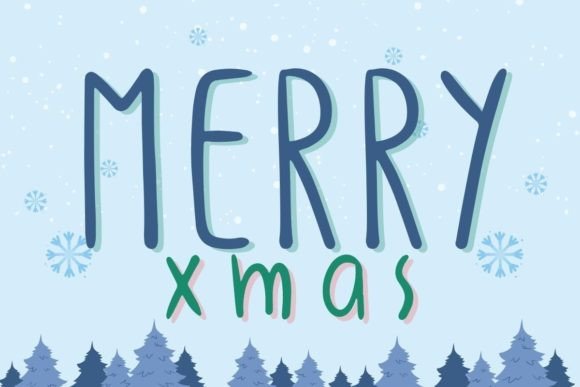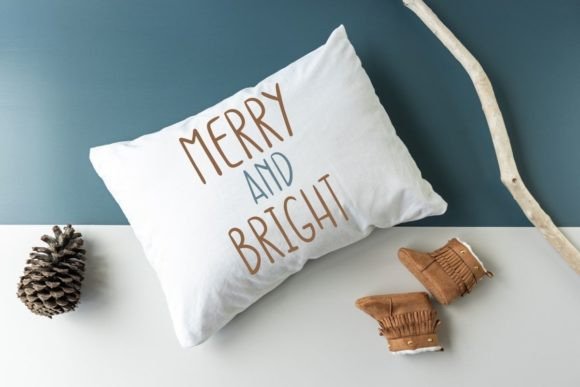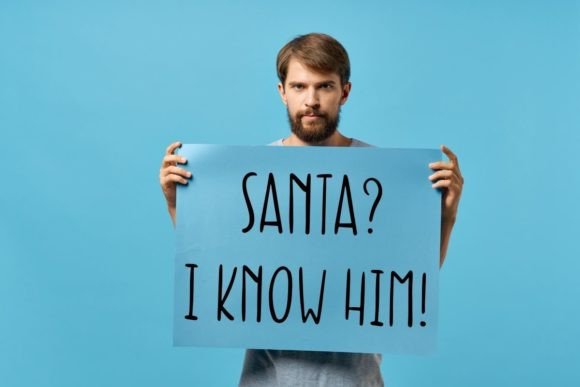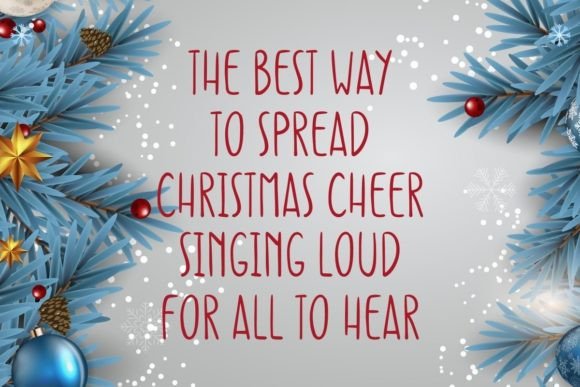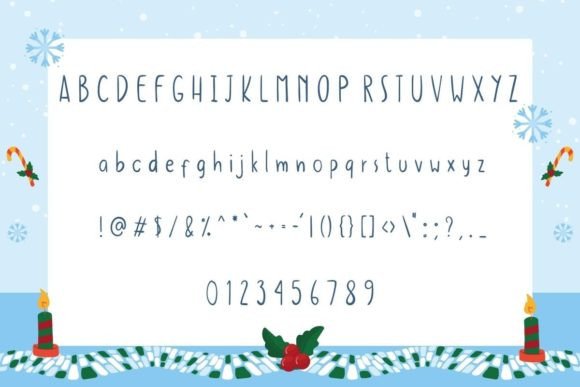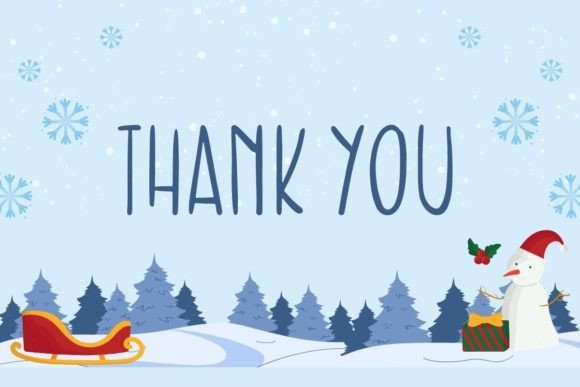
Merry Xmas Font
About Merry Xmas Font
Merry Xmas font is a delightful and quirky handwritten typeface that brings a festive spirit to any project. When you download Merry Xmas font, you add a fun, playful vibe that’s perfect for holiday-themed designs and more. This font stands out with its charming personality, making it an excellent choice for creative projects that need a sweet, handcrafted touch.
Versatile Holiday Use
This font’s versatile style allows it to shine in a wide range of applications. Whether you are designing greeting cards, kids’ crafts, festive invitations, or social media posts, downloading Merry Xmasfont will ensure your work has an inviting and joyful look. Its quirky, hand-drawn feel adds a unique flair to holiday projects.
Fun and Quirky Style
Merry Xmasfont captures the warmth and fun of the holiday season with its playful, handwritten characters. It’s designed to convey cheerfulness and creativity, making it a perfect match for festive greetings and creative crafts. Download Merry Xmasfont to bring that authentic, joyous feel to your designs.